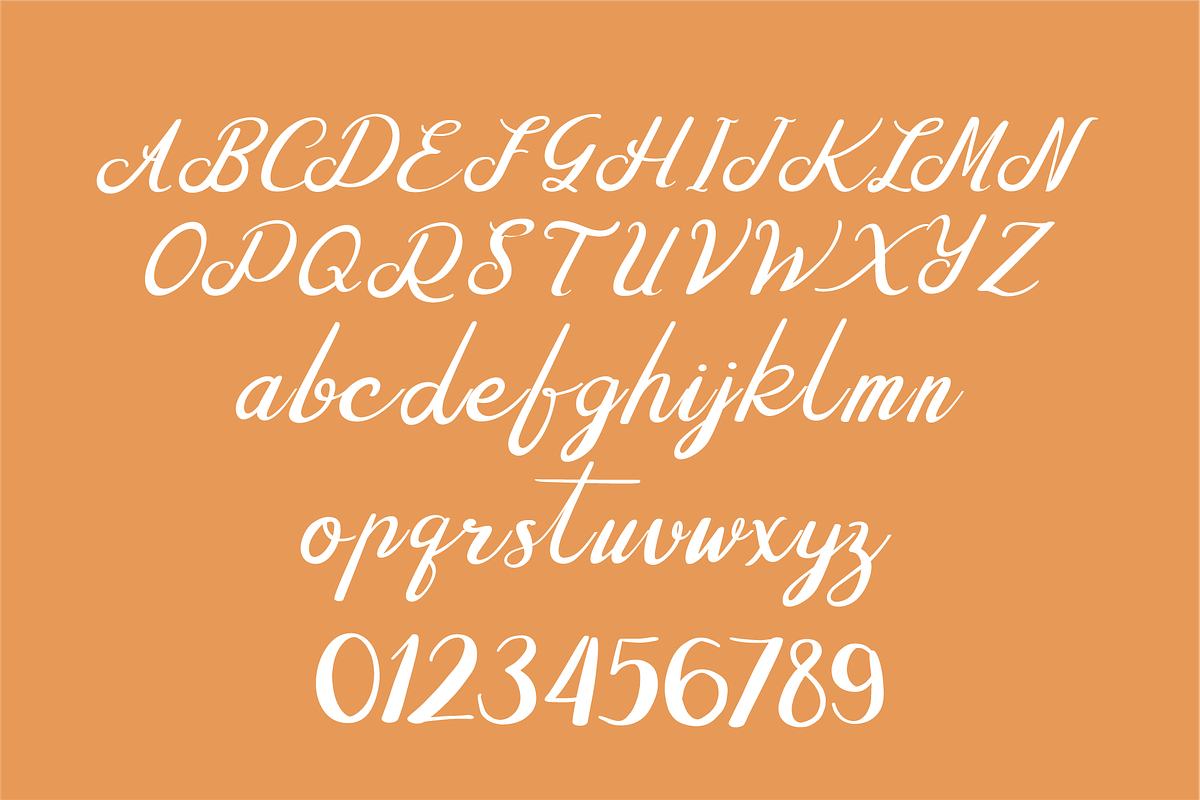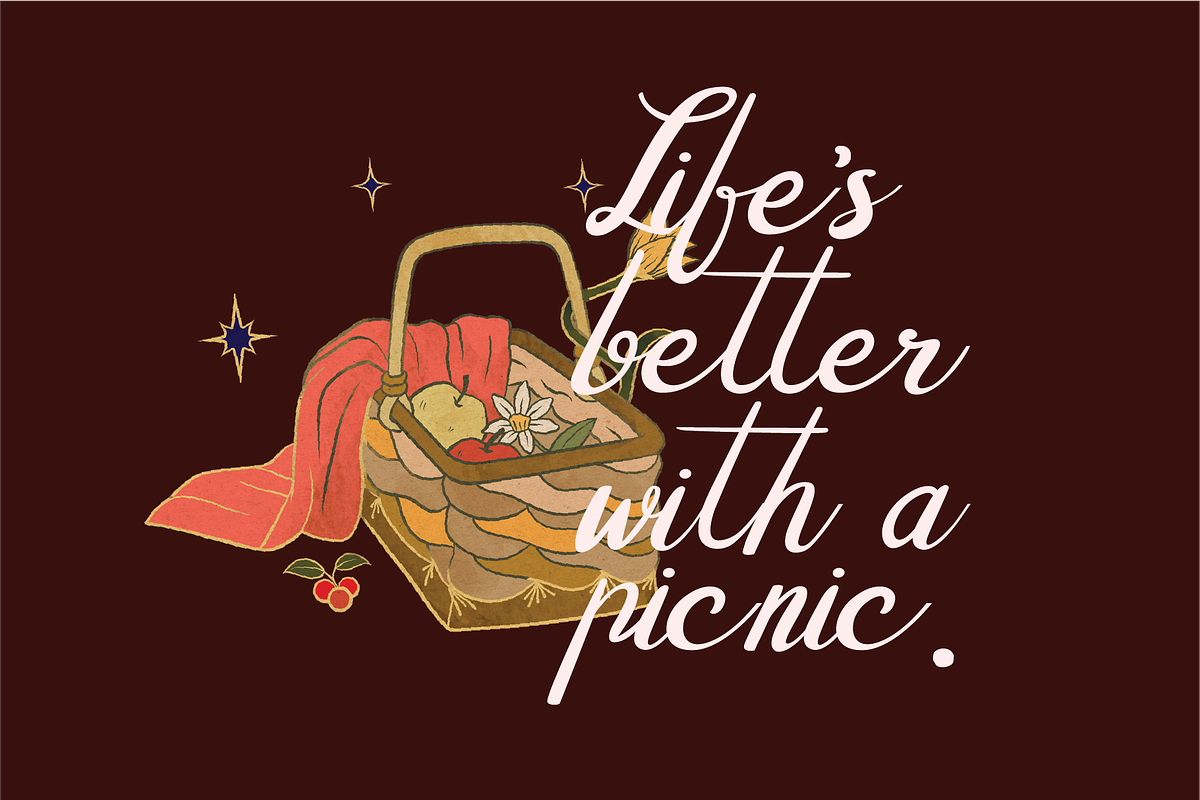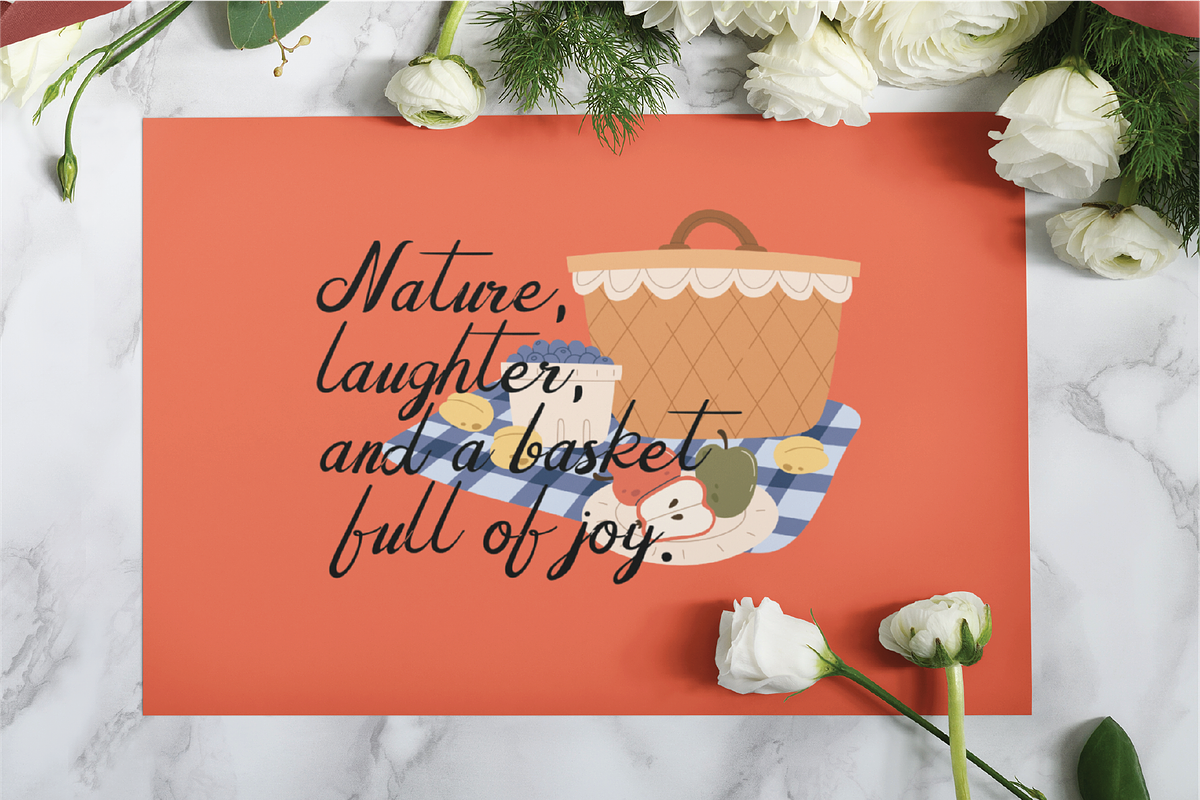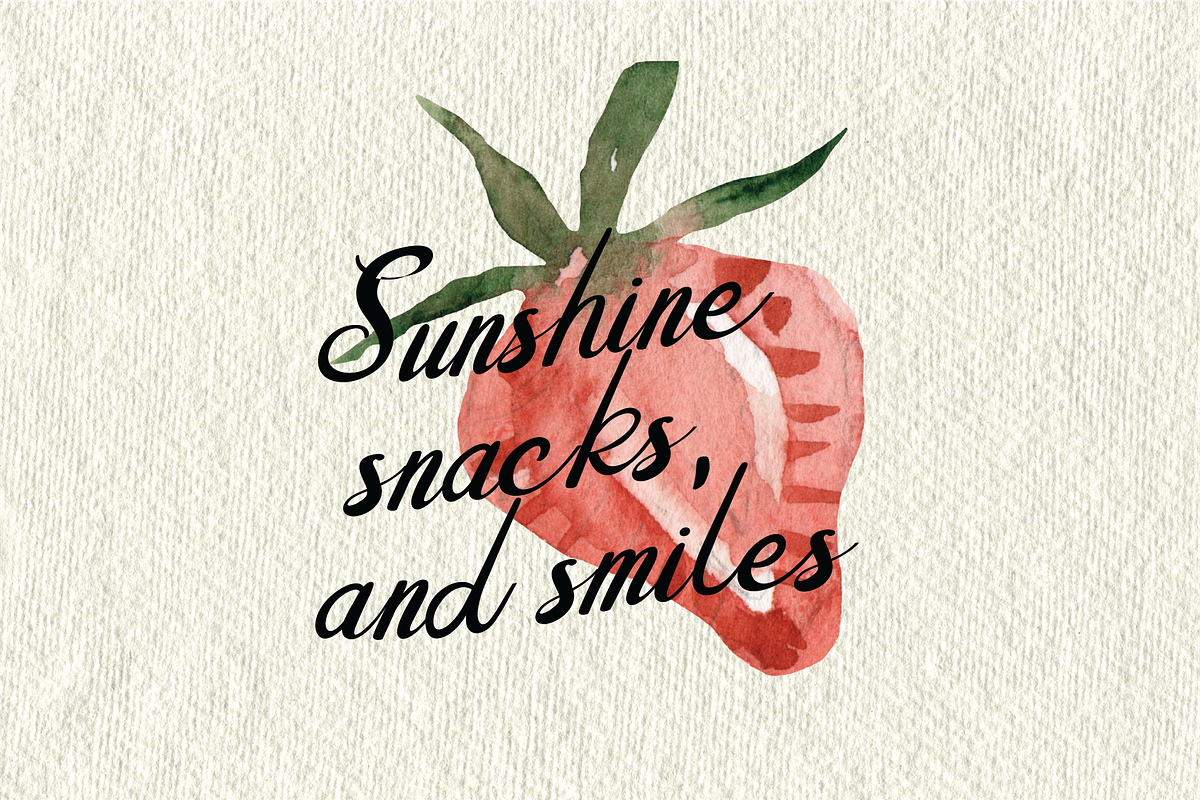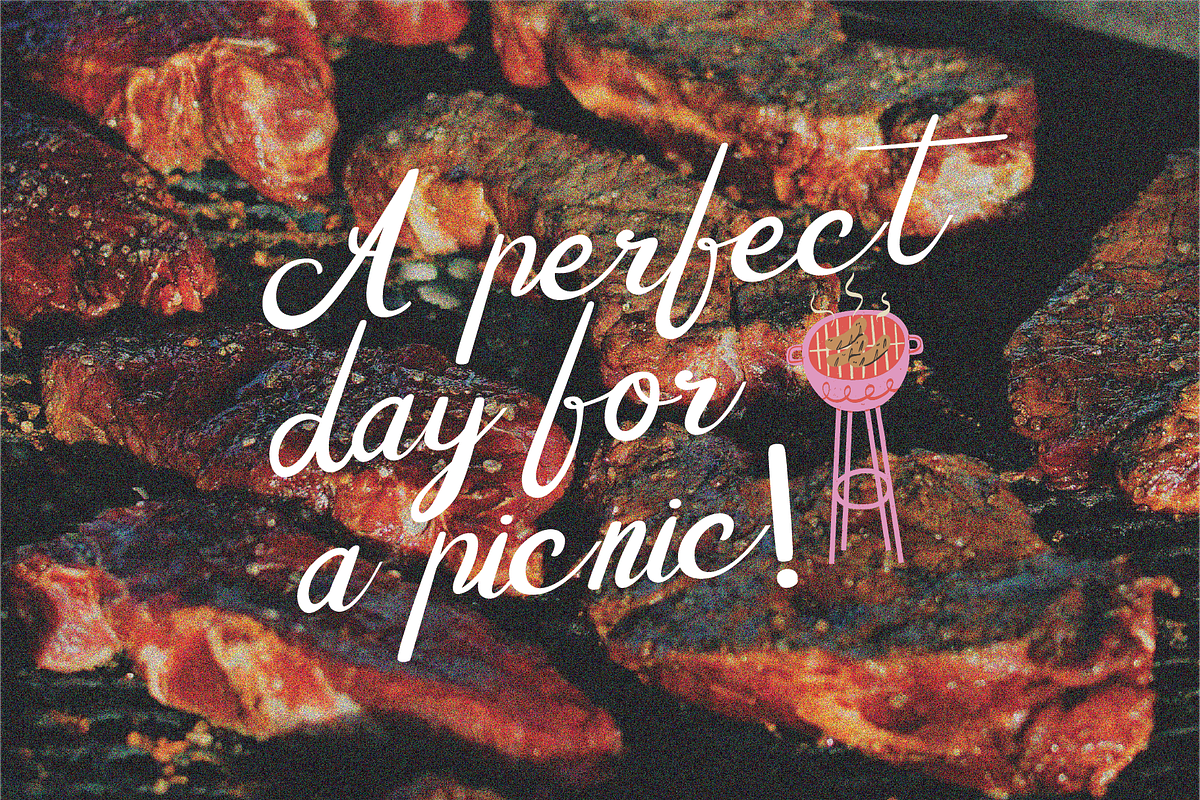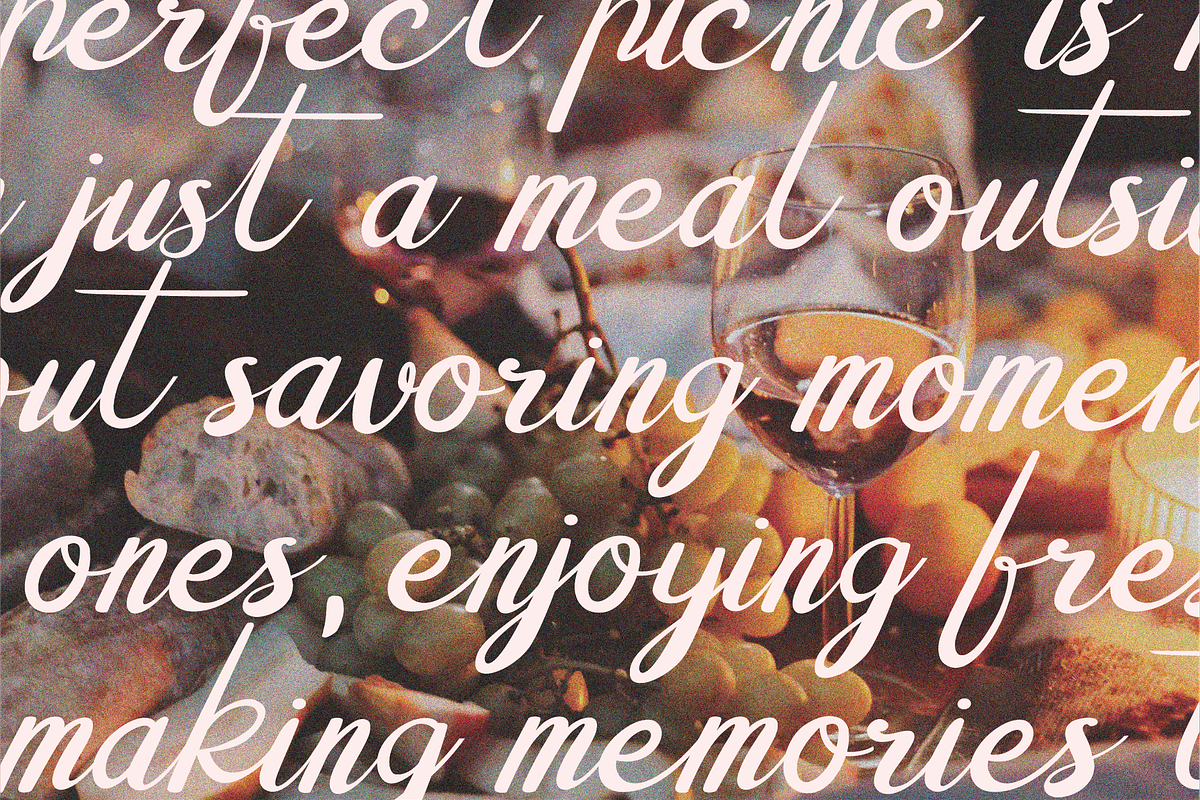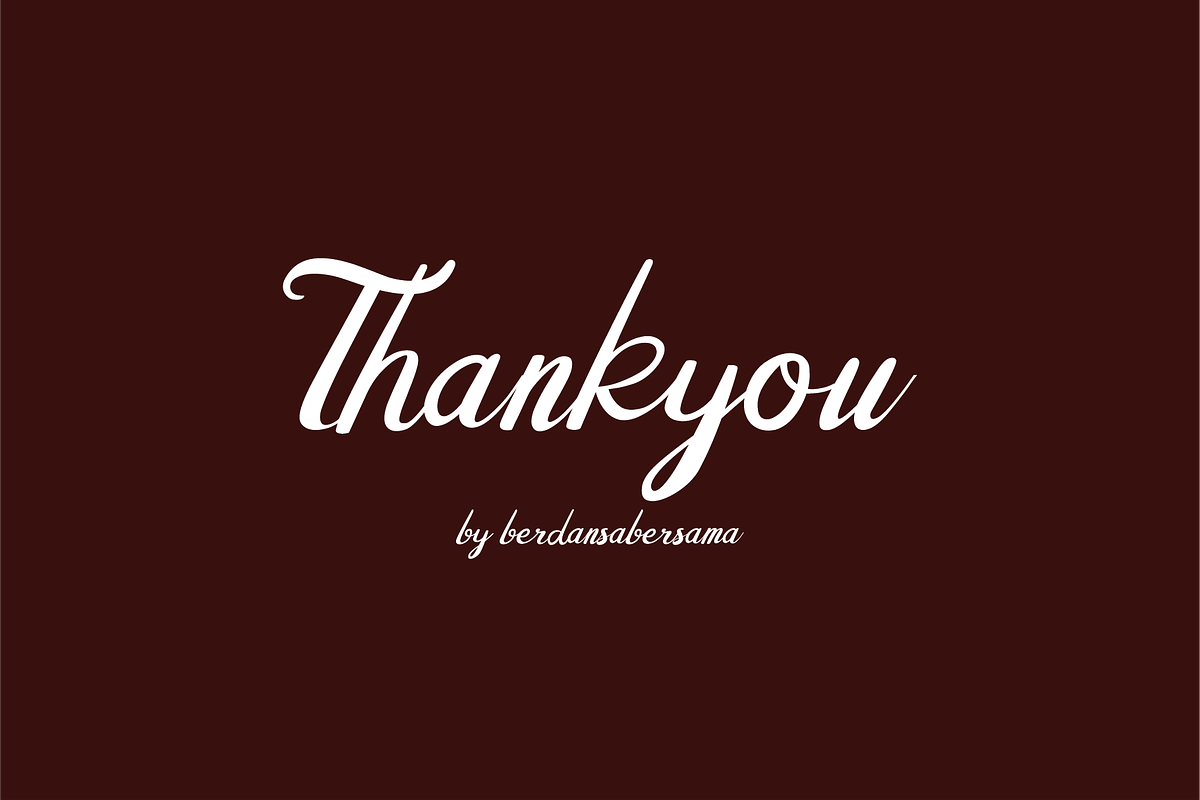
Refiles Handwritten Font
Refiles is a handwritten script font that blends sophistication with natural charm. Its graceful curves and flowing strokes capture the essence of timeless handwriting — elegant yet effortlessly modern.
- Numbers, marks and symbols